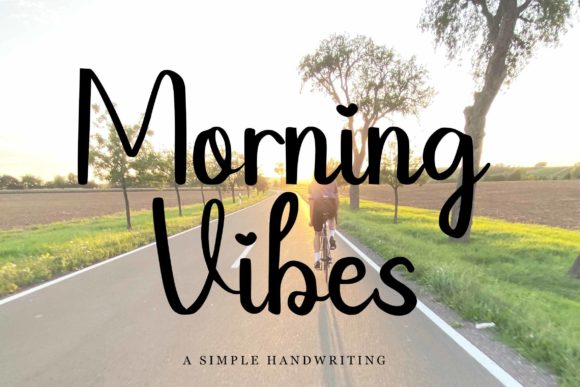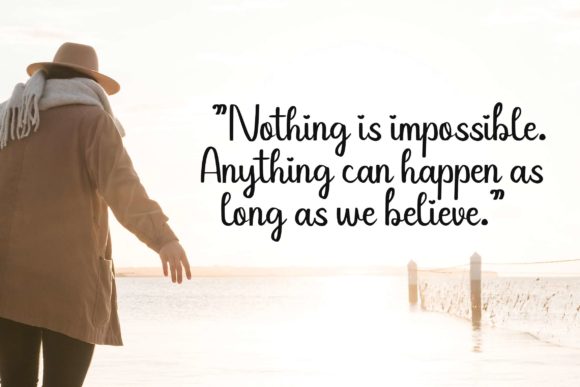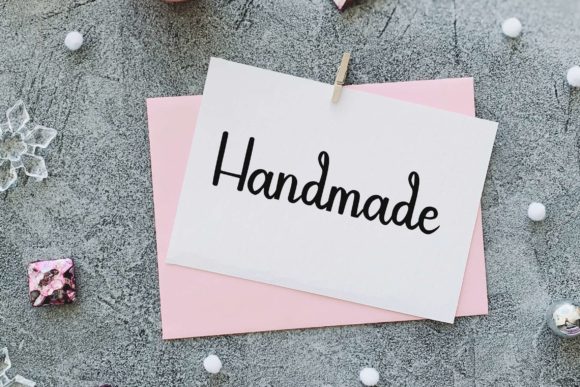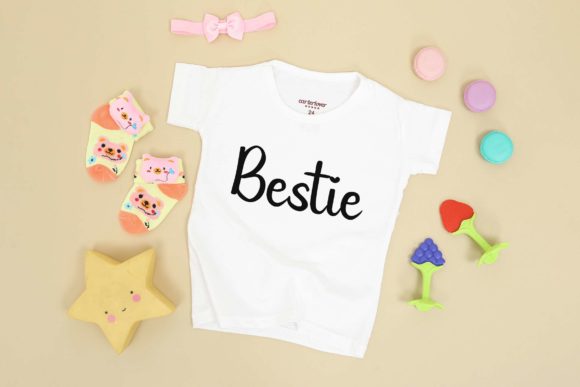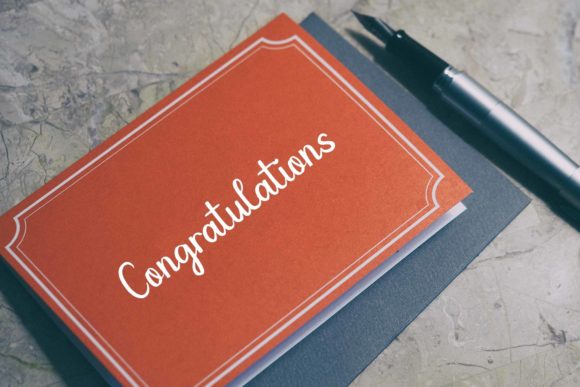
Morning Vibes Font
About Morning Vibes Font
Morning Vibes is a simple yet impressive script font.It will add a playful and romantic touch to any of your projects. Use it for greeting cards, social media posts, or any design that requires a lovely vibe.